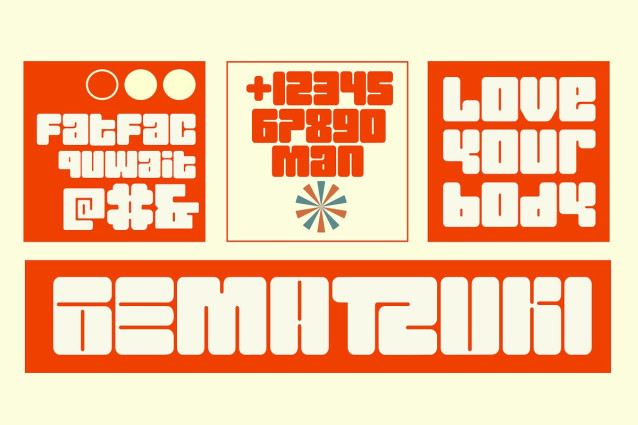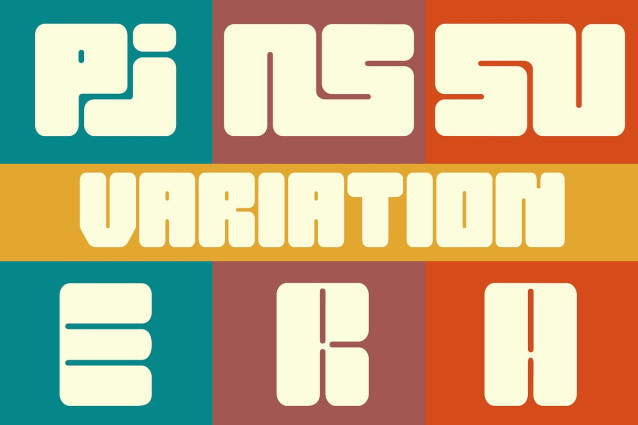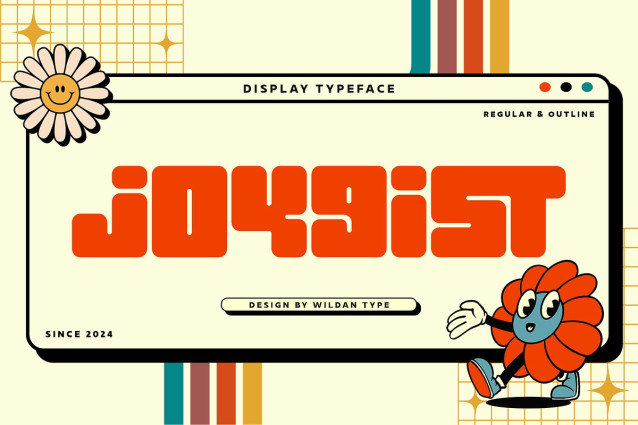
Joygist Font
Joygist Font! A Chunky display typeface that’s built for having fun. With bold foundation and rounded, this font give unique style with some retro taste. That will make your design stand out.